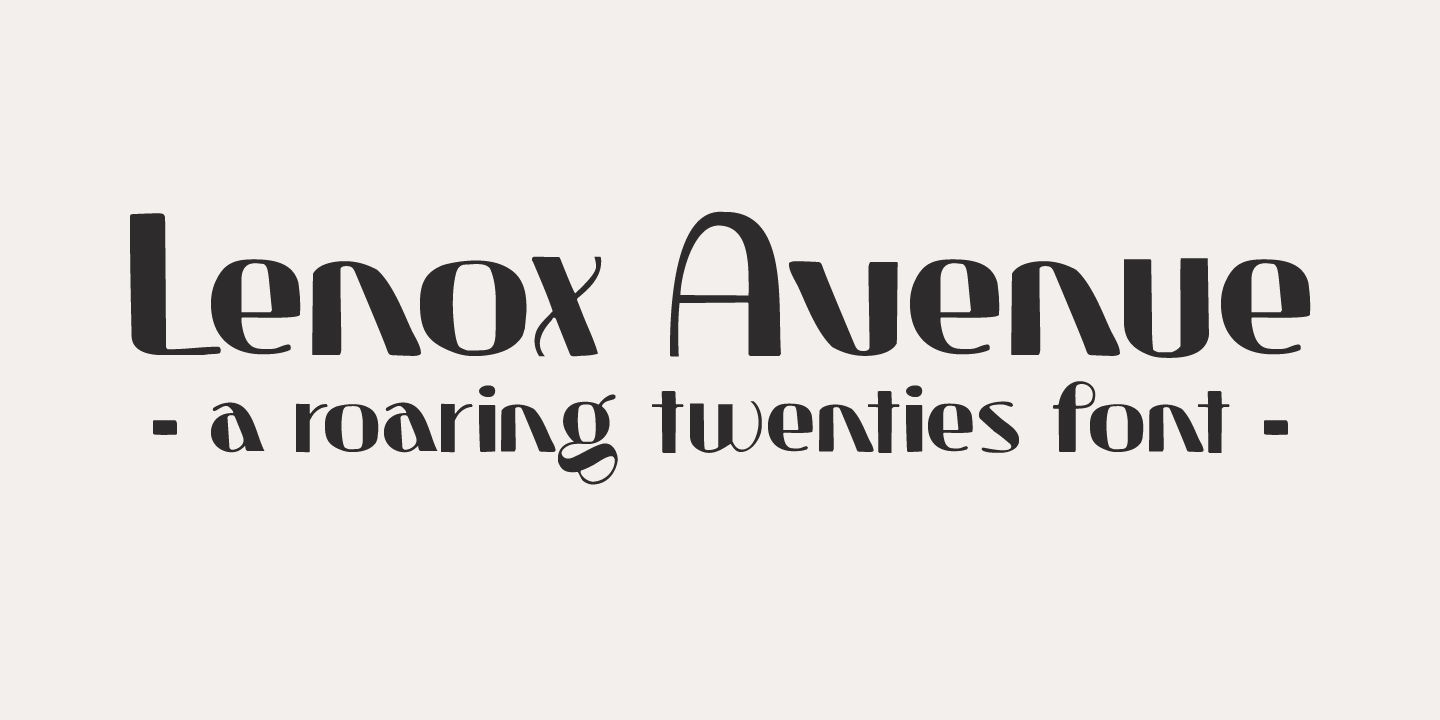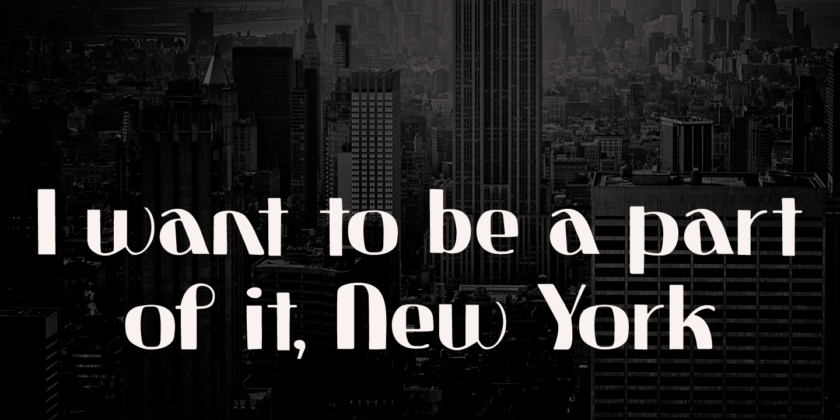
I came across an old book called ?Studio Handbook Letter And Design For Artists And Advertisers? by Samuel Welo. He was an American advertising calligrapher, typographer and lettering artist, who was most active during the roaring twenties. Lenox Avenue…